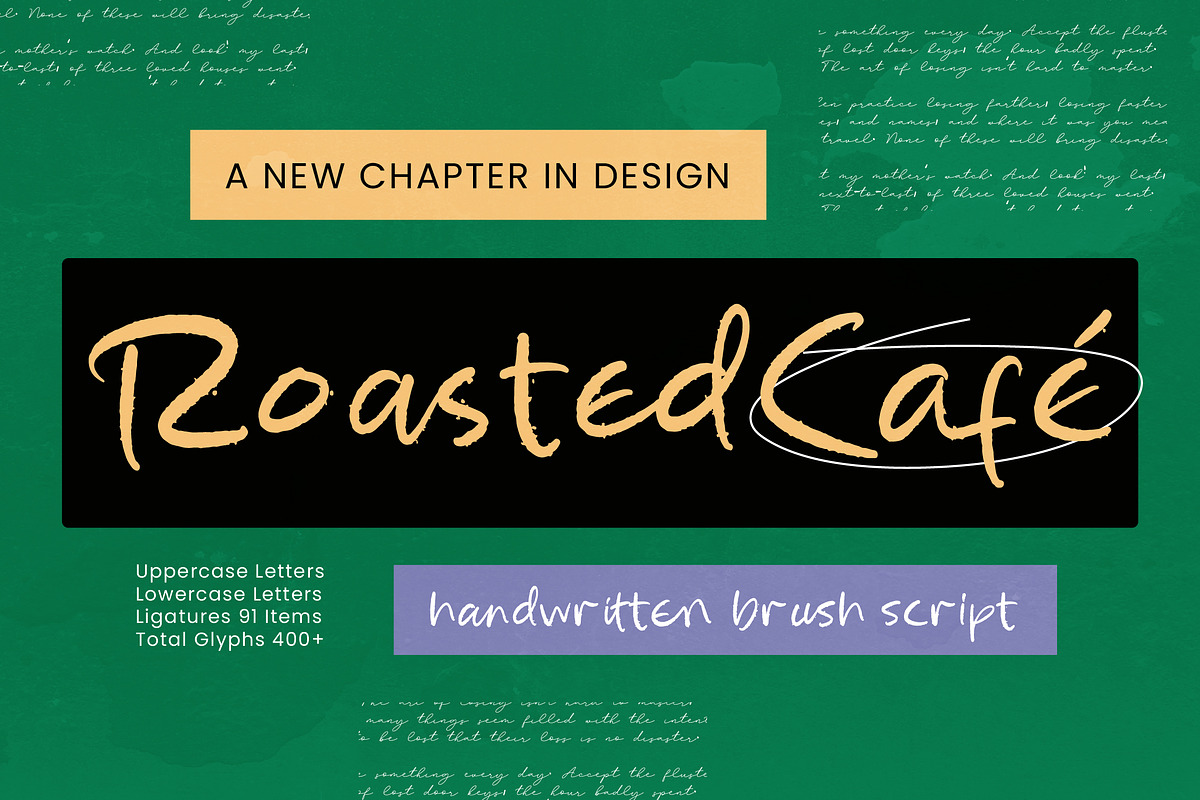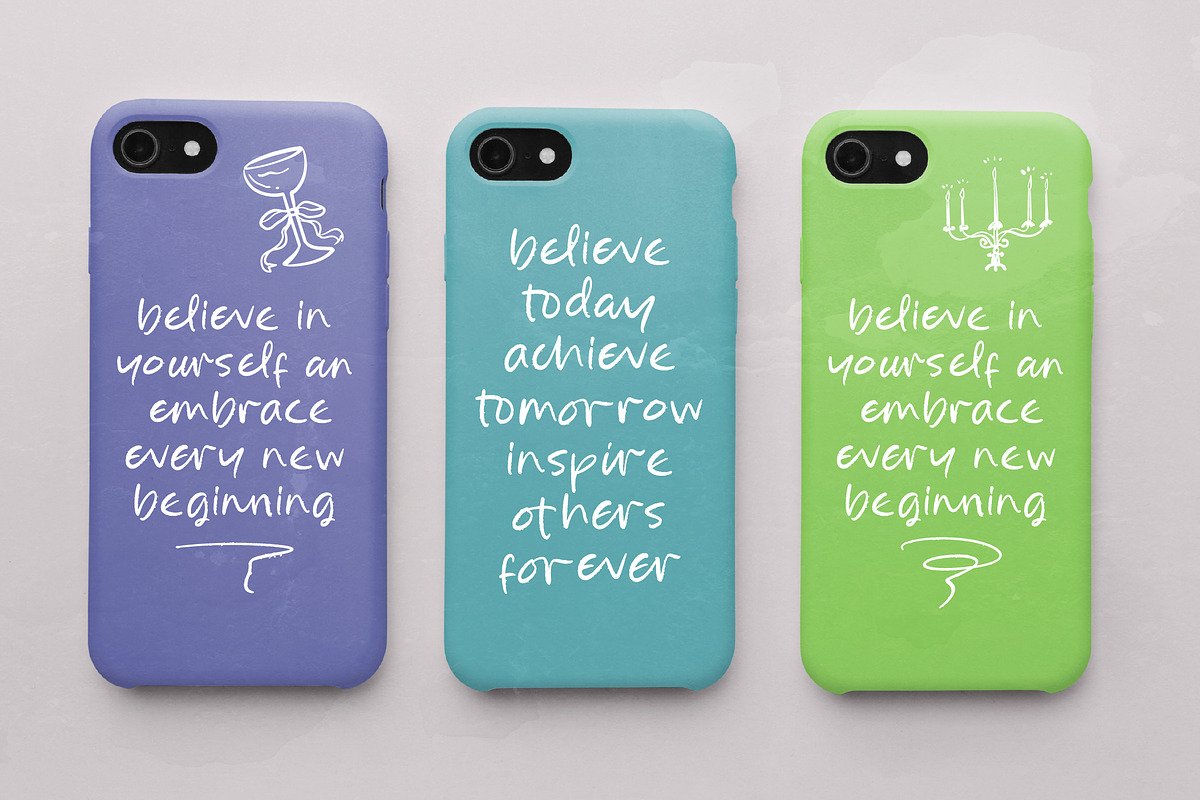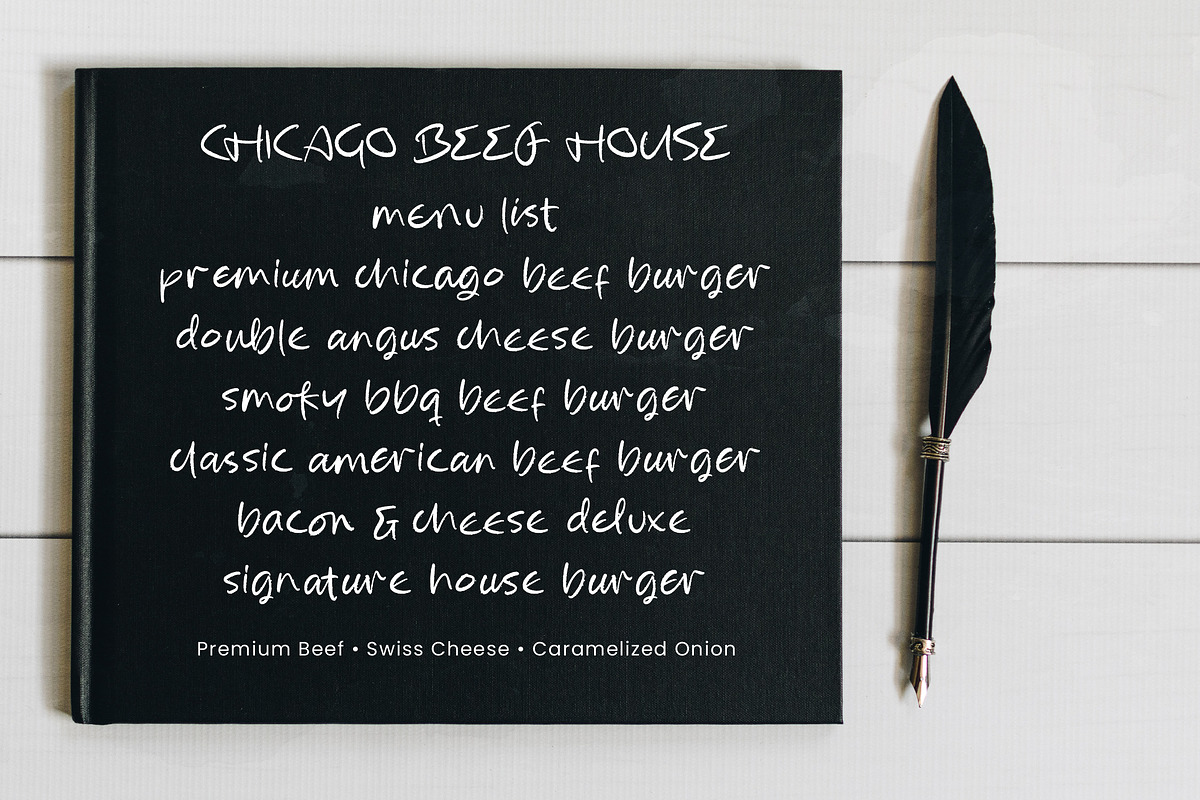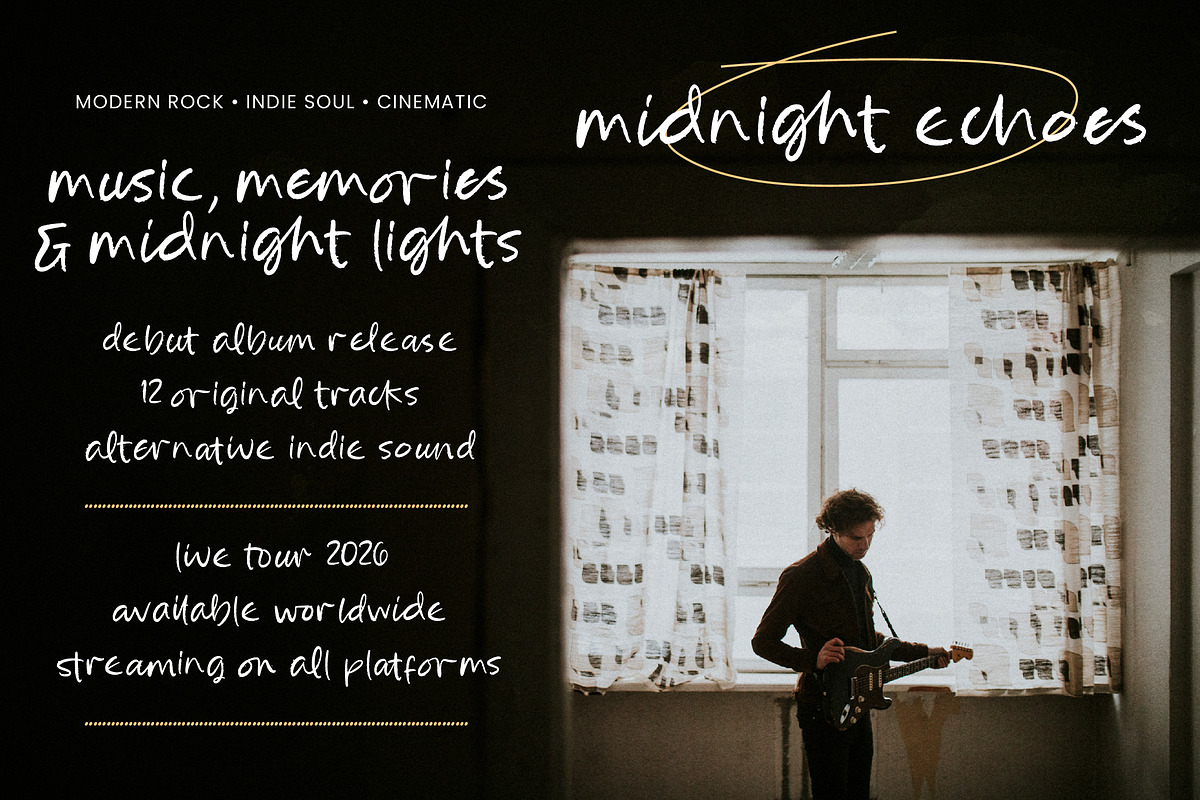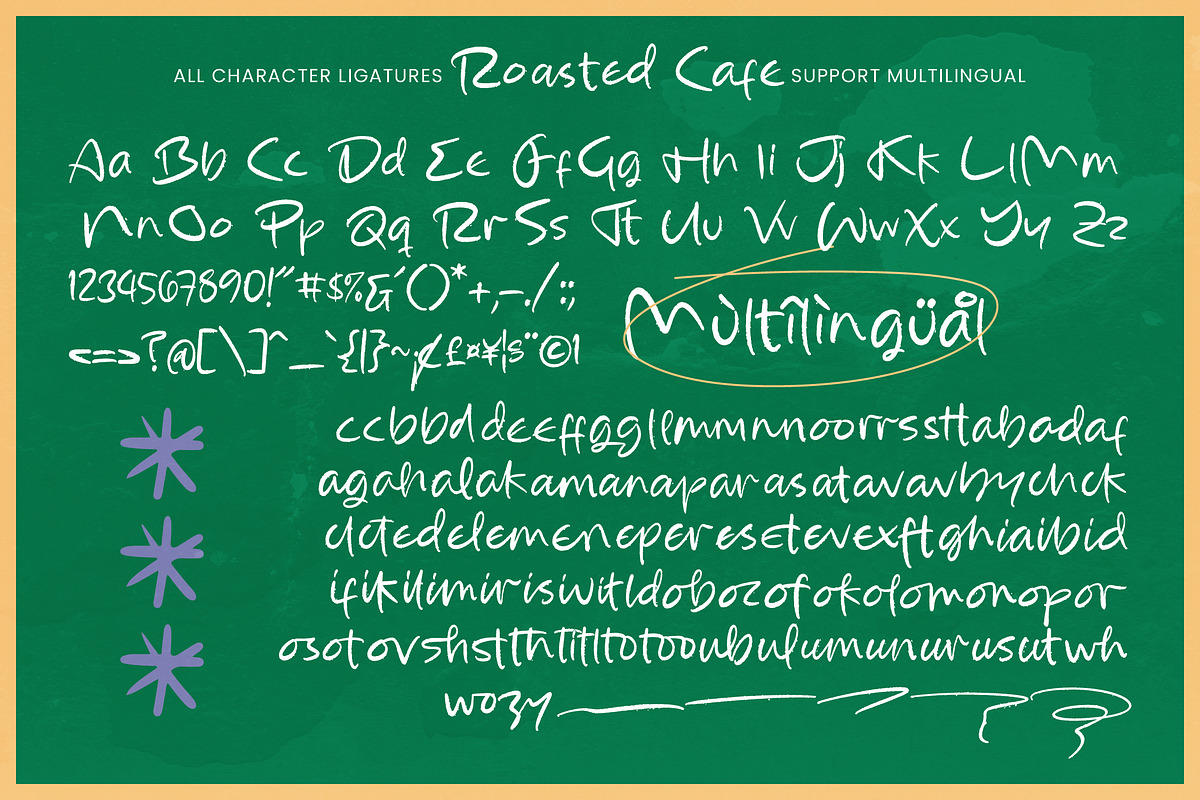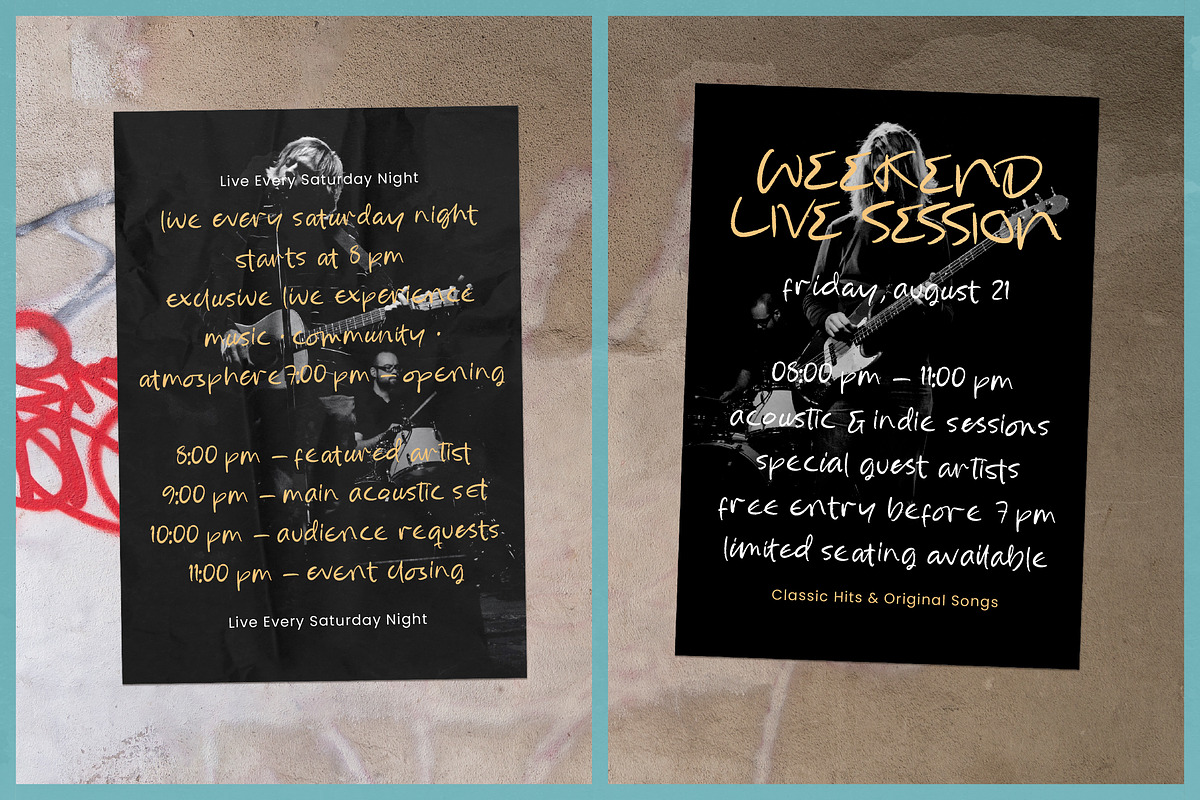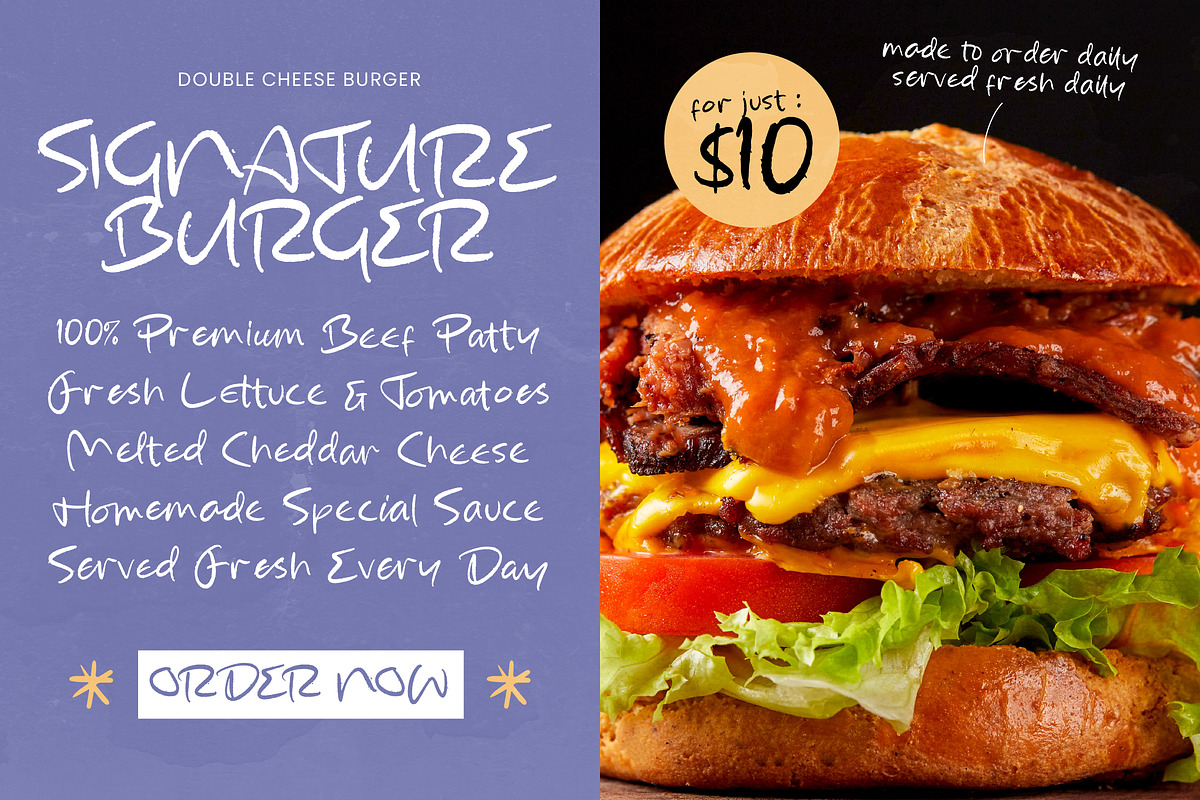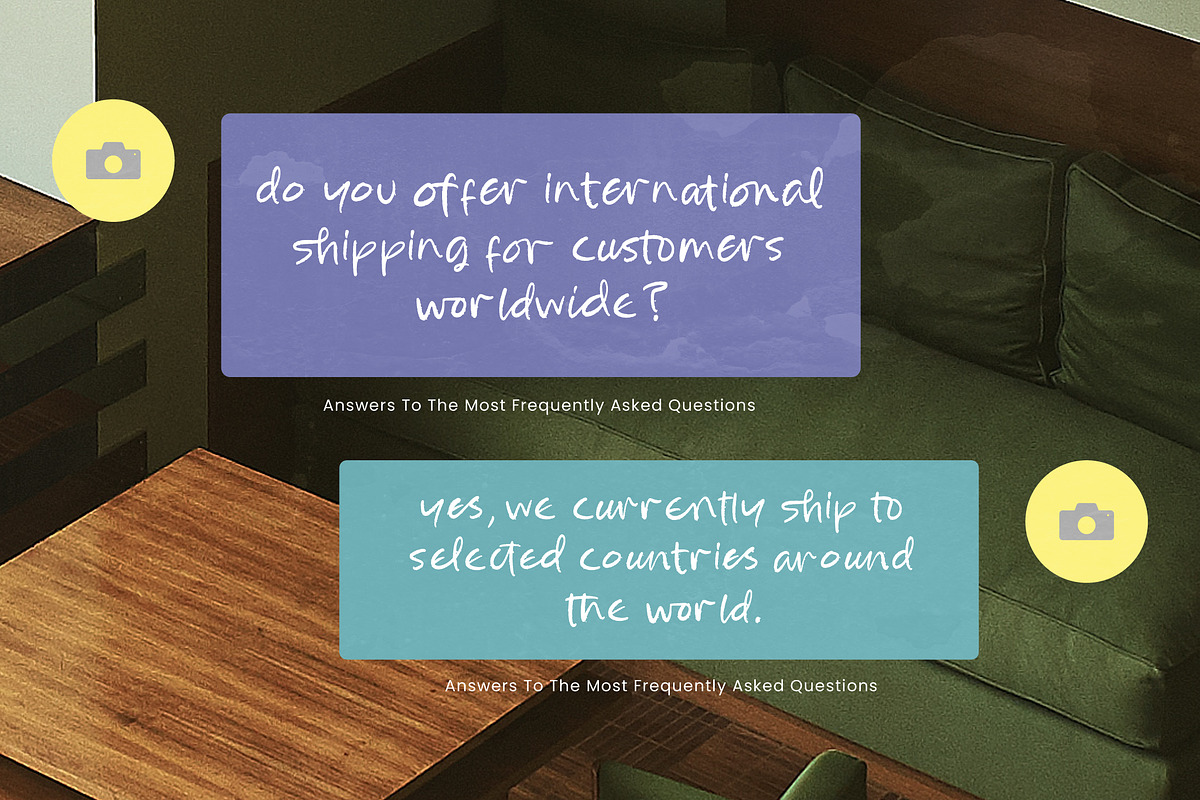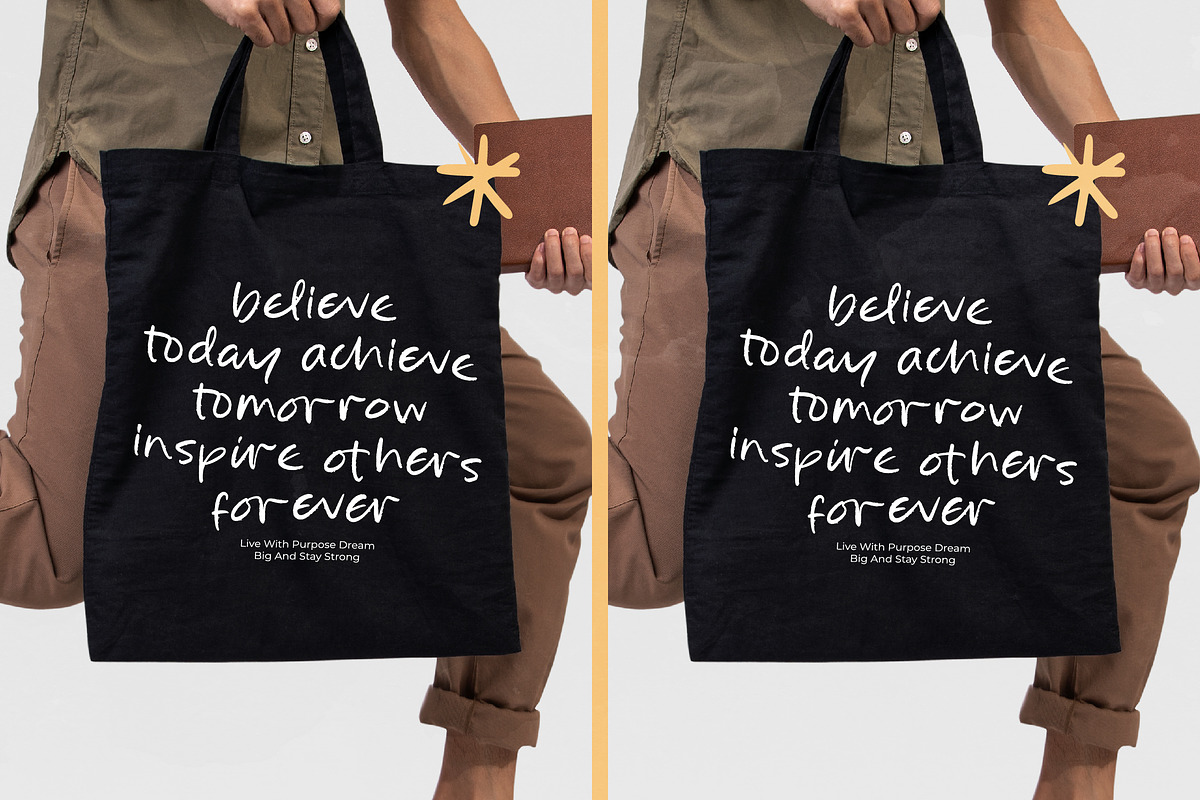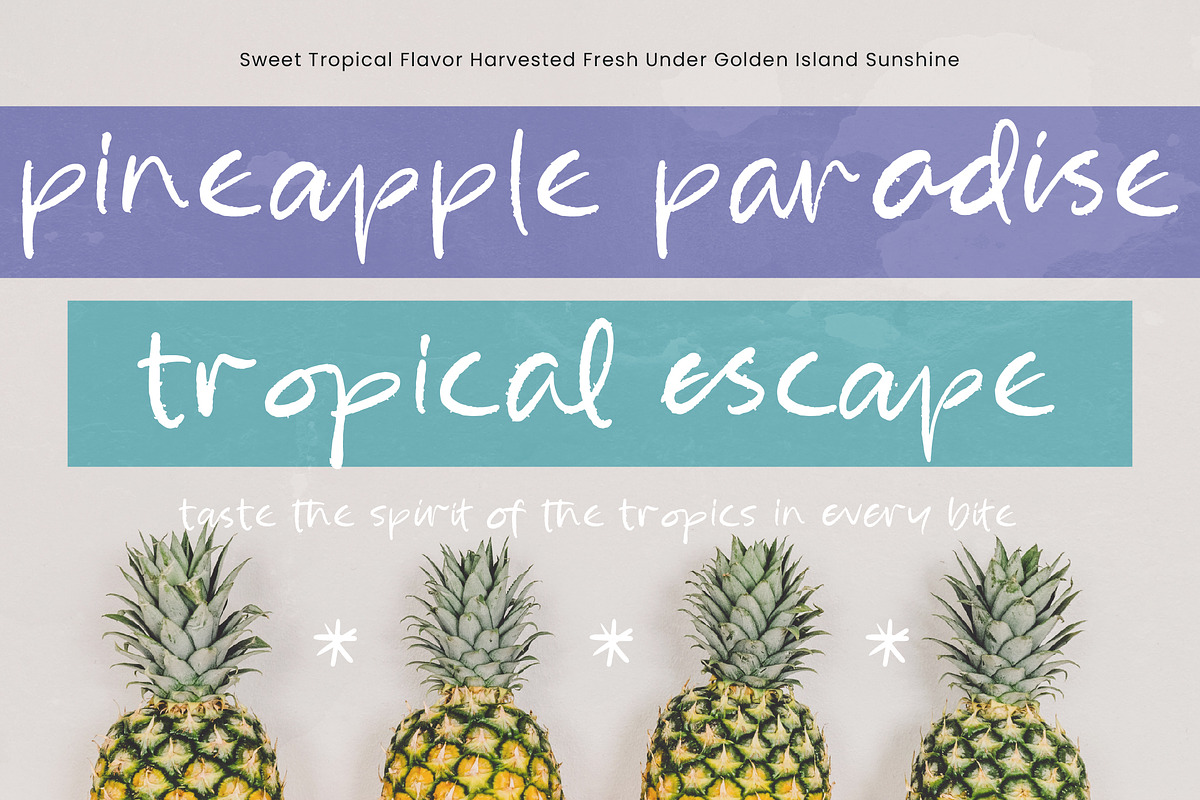
Roasted Cafe Handwritten Brush
Roasted Cafe - Handwritten Brush Script , Elevate your creative projects with a touch of authentic human expression. Roasted Cafe - Handwritten Brush Script captures the raw energy of manual brush strokes, offering a textured aesthetic that brings a natural, handcrafted feel to digital designs. Its dynamic flow and organic character make it an essential tool for designers seeking to break away from rigid, clinical typography.
Transform your brand identity with unparalleled personality and visual flair. This typeface is perfect for luxury branding, artisanal packaging, and lifestyle photography overlays. Whether you are crafting a unique logo, designing social media graphics, or creating modern editorial layouts, Roasted Cafe - Handwritten Brush Script provides the visual impact needed to stand out. It is particularly well-suited for café menus, apparel design, and premium product labels.
Reach a diverse worldwide audience without compromising on style or quality. With its extensive multilingual support, Roasted Cafe - Handwritten Brush Script adapts seamlessly across global markets, making it incredibly versatile for international projects. Boasting over 400+ glyphs and 91 ligatures, this font ensures that your message remains legible and stylish in various languages. Its comprehensive character set allows for a truly customized typographic experience.